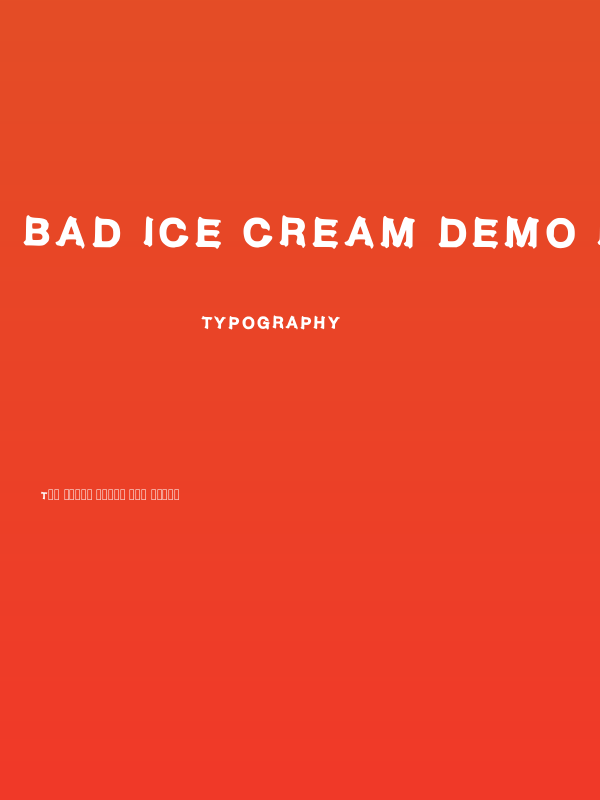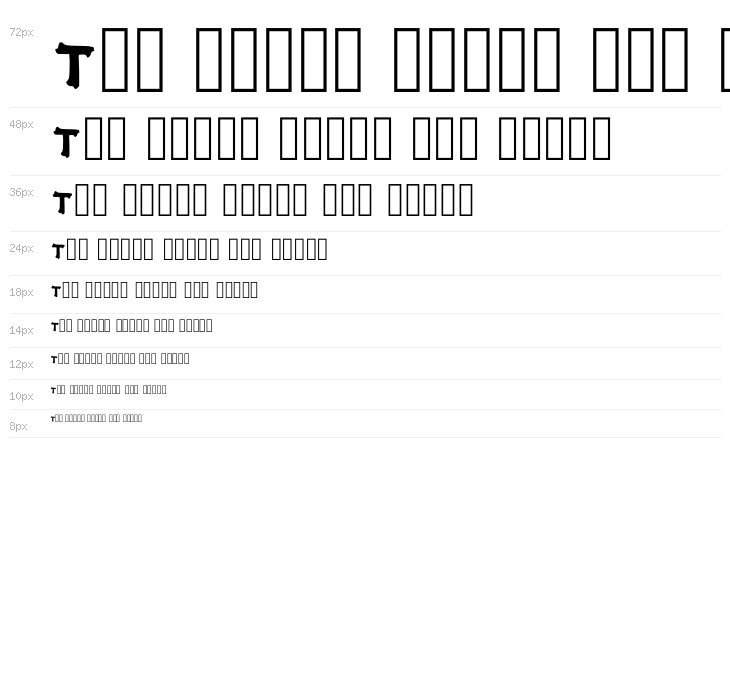
Bad Ice Cream Demo Regular Font
This font features a playful and bold design, reminiscent of hand-carved ice or frozen treats. The uppercase letters have a chunky, uneven appearance, with irregular edges that give a whimsical and fun vibe. The style is distinctly decorative, making it suitable for projects that require a unique and eye-catching typeface. The font's boldness and irregularity suggest a sense of movement and energy, perfect for creative and informal designs.
Proposed ProjectsIdeal for children's book covers, playful branding, ice cream shop signage, and creative posters.